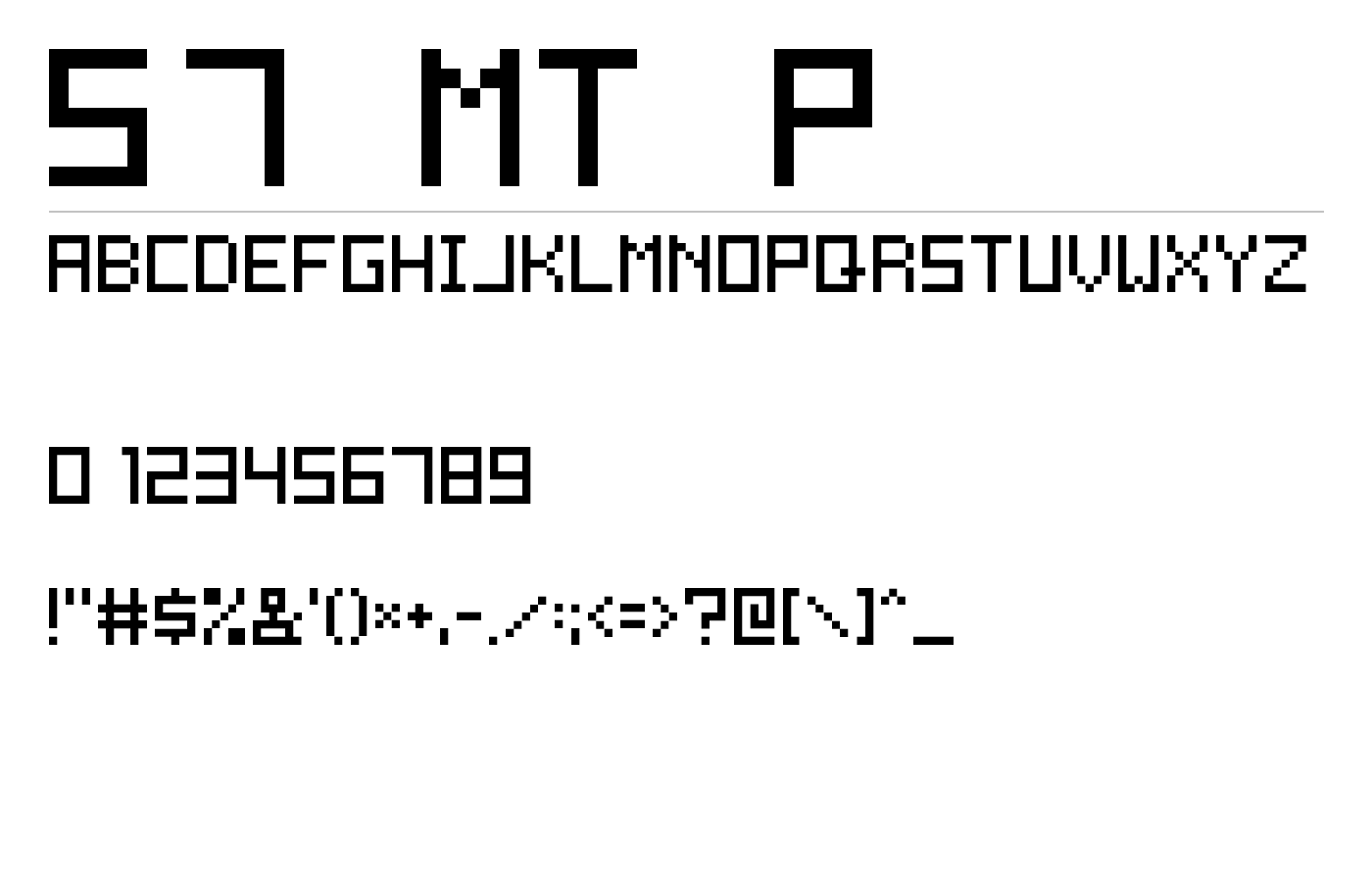
5x7 MT Pixel Font is a monospaced, pixel-style sans serif typeface characterized by its clean, geometric block shapes and uniform stroke weight. It evokes a retro digital aesthetic perfect for tech-inspired designs, gaming interfaces, or any context where a classic, minimalist pixel look is desired. This font works best in headlines, logos, and digital displays where its sharp, grid-based form enhances readability at small sizes and creates a nostalgic yet modern vibe.
5x7 MT Pixel Font